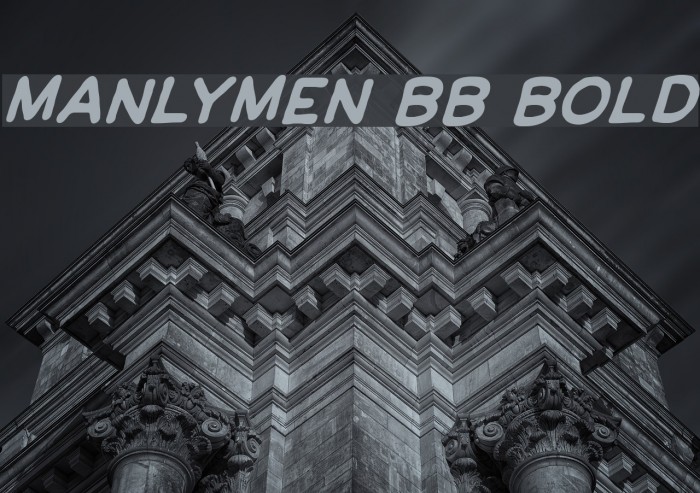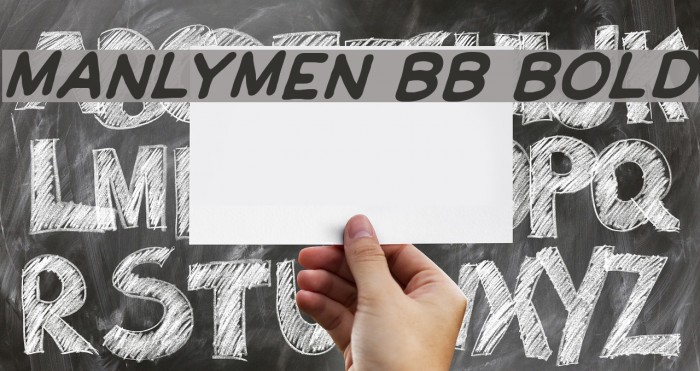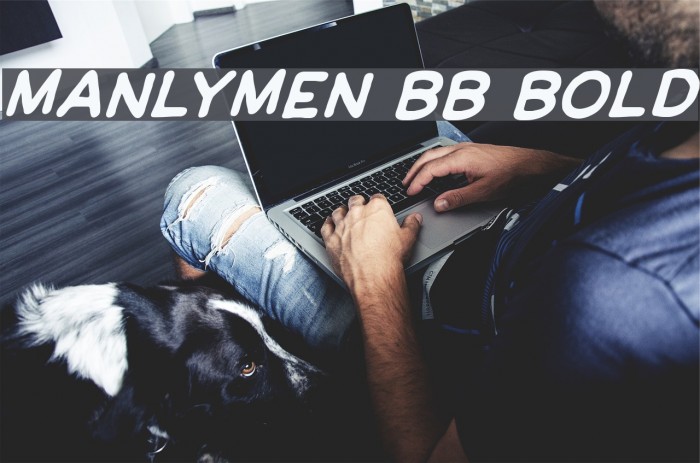
ManlyMen BB Bold Font
This bold and dynamic font features a strong, masculine style with a slight slant, giving it an energetic and forward-moving appearance. The characters are rounded and smooth, with a consistent stroke width that adds to its boldness. The uppercase and lowercase letters maintain a uniform style, ensuring readability and cohesion. The numerals are equally bold and clear, making them suitable for impactful displays. Special characters are well-integrated, maintaining the overall aesthetic of the font.
A bold, slanted font with smooth, rounded characters for a dynamic look.
- Proposed Projects: Ideal for sports branding, action-themed posters, and dynamic logo designs.